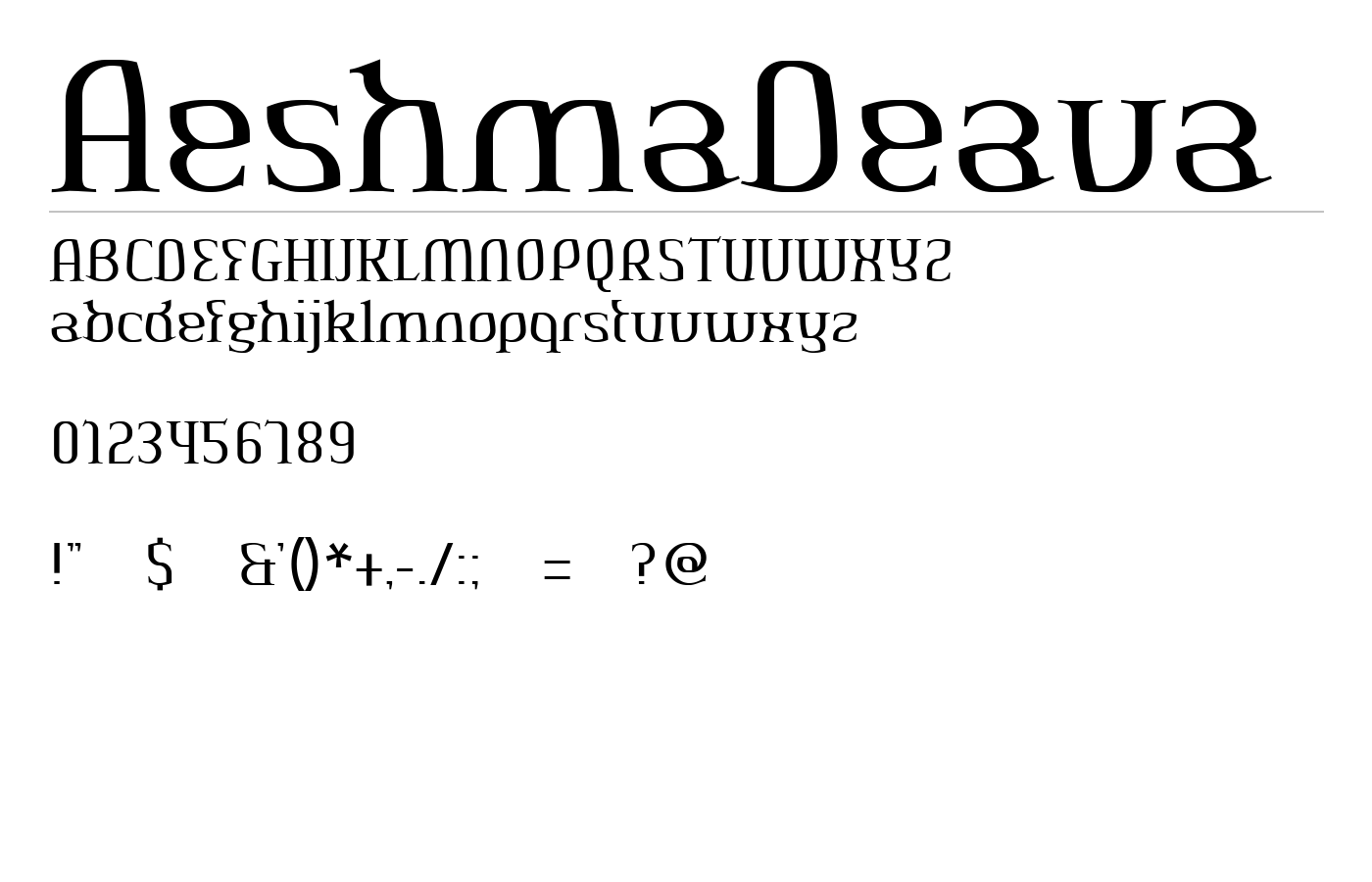
AeshmaDeava is a distinctive serif font with a modern, artistic twist characterized by its tall, narrow letterforms and unique, slightly quirky details like single-story ‘a’ and stylized ‘Q’ tails. With medium stroke contrast and finely tapered serifs, it conveys a refined yet unconventional personality, making it ideal for creative branding, editorial headlines, and designs seeking a blend of elegance and originality. This font stands out in projects that want to combine sophistication with a touch of avant-garde flair.
AeshmaDeava Font
About AeshmaDeava Font